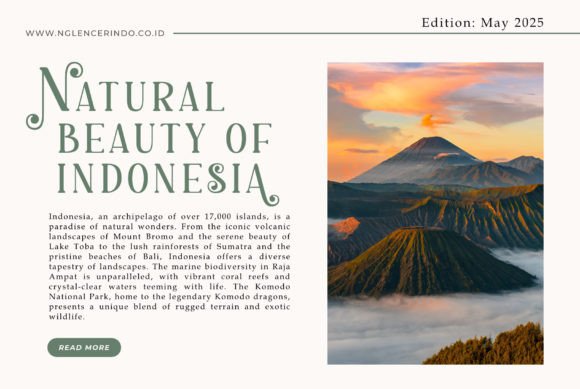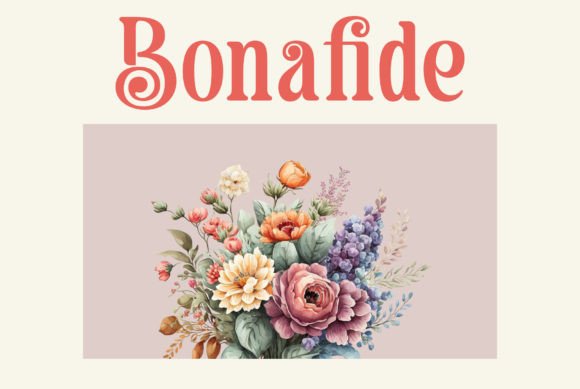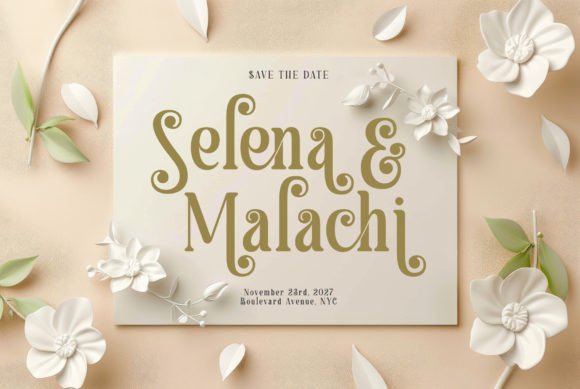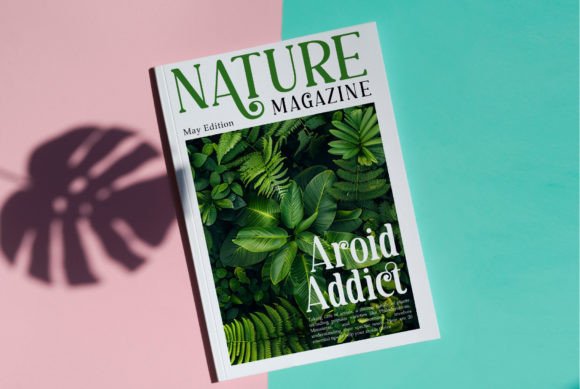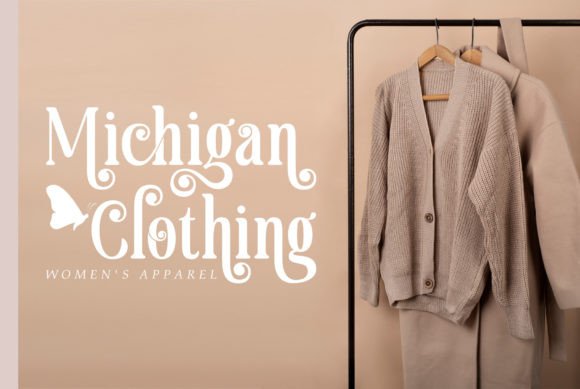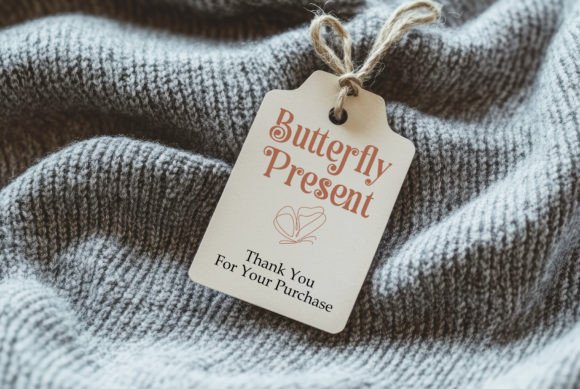
Introducing Haulage: A Timeless Serif Font for Elegant Designs
In the world of typography, few fonts manage to capture the essence of timeless elegance and charm. Haulage, a natural handmade serif font, is one such exceptional find. Crafted with meticulous attention to detail, Haulage boasts a variety of unique, natural, and classic characters that are sure to elevate your designs to new heights. In this article, we’ll explore the features and benefits of Haulage, and why it’s the perfect choice for designers and crafters looking to add a touch of classic sophistication to their work.
The Unique Charm of Haulage
Haulage is more than just a font – it’s a design statement. Each letter is carefully crafted to capture the essence of vintage aesthetics, with a focus on natural, handmade serifs that exude warmth and character. The font’s classic and vintage look makes it incredibly versatile, ideal for a wide range of design applications, from branding and logotypes to magazines and more.
Ligatures and Alternates: The Heart of Haulage
One of the standout features of Haulage is its beautiful ligatures and alternates. These unique characters add an extra layer of elegance and sophistication to your designs, allowing you to create complex and visually appealing typography. Whether you’re designing a logo, heading, or body text, Haulage’s ligatures and alternates provide the perfect blend of tradition and creativity.
The classic and vintage look of Haulage makes it an incredibly versatile font, suitable for a wide range of design projects. Here are just a few examples of how you can use Haulage to elevate your designs:
• Branding: Create a lasting impression with Haulage’s elegant serifs and timeless charm. Perfect for luxury brands, fashion labels, and high-end businesses.
• Logotypes: Make a statement with Haulage’s unique characters and classic appeal. Ideal for creating memorable and iconic logos.
• Magazines: Add a touch of sophistication to your magazine covers and layouts with Haulage’s refined and polished appearance.
Why Choose Haulage?
With so many fonts available, why choose Haulage? Here are just a few reasons why Haulage stands out from the crowd:
• Unique Character: Haulage’s handmade serifs and natural aesthetic make it a one-of-a-kind font that’s sure to grab attention.
• Timeless Elegance: Haulage’s classic appeal ensures that your designs will remain stylish and sophisticated for years to come.
• Versatility: Haulage is suitable for a wide range of design applications, making it a valuable addition to any designer’s toolkit.
Embracing the Natural Beauty of Haulage
Haulage is more than just a font – it’s a design philosophy. By embracing the natural beauty and classic appeal of Haulage, you can create designs that tell a story of elegance and timelessness. Whether you’re a designer, crafter, or simply someone who appreciates beautiful typography, Haulage is the perfect choice for anyone looking to add a touch of sophistication to their work.
In conclusion, Haulage is a truly exceptional font that offers a unique blend of timeless elegance and classic charm. With its handmade serifs, natural aesthetic, and versatile design, Haulage is the perfect choice for designers and crafters looking to elevate their designs to new heights. So why wait? Discover the beauty and sophistication of Haulage today, and let your designs tell a story of elegance and timelessness.